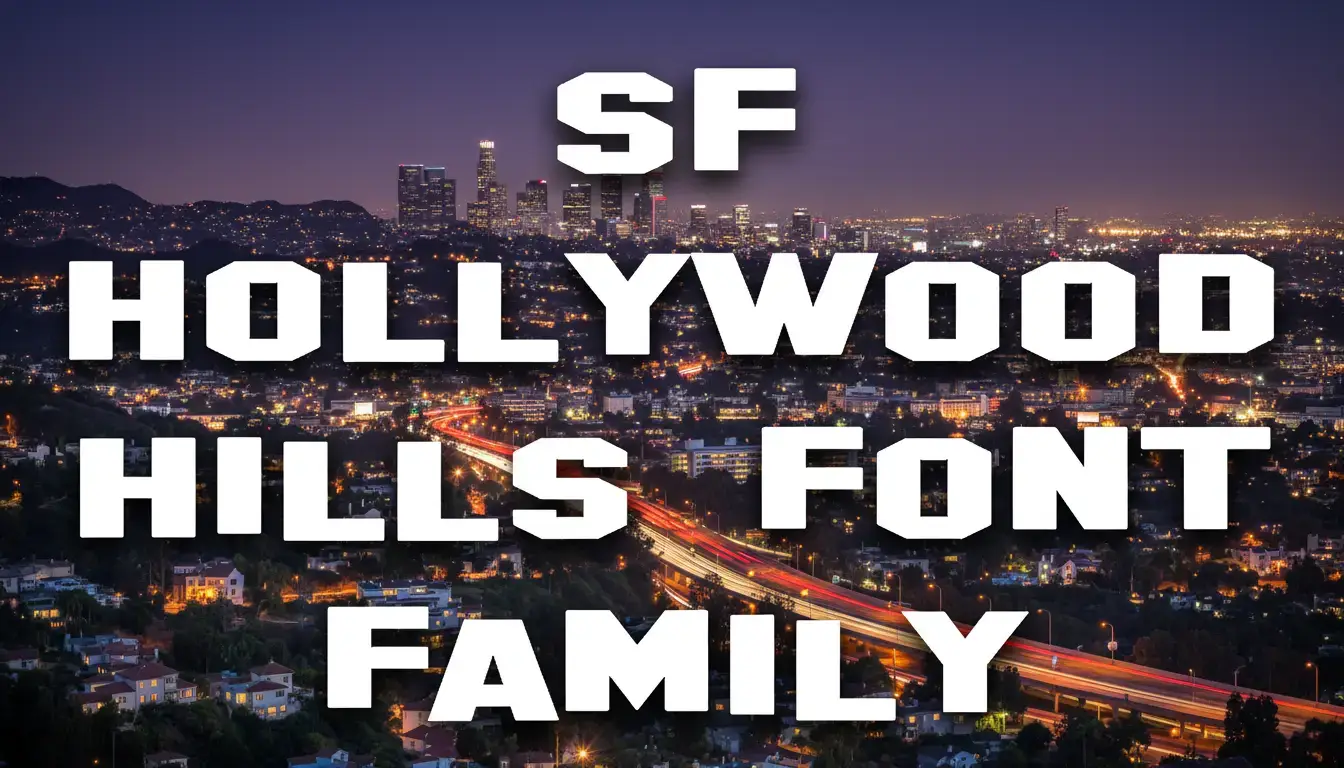
SF Hollywood Hills Font
What You Can Type With SF Hollywood Hills
SF Hollywood Hills covers the full alphabet in upper and lowercase, plus all ten numbers, so you can set names, dates and prices without switching fonts. Common punctuation such as ! and ? is included as well. It doesn't include accented letters such as é or ñ, which makes it an English-only font.
Where SF Hollywood Hills Works Best
SF Hollywood Hills is a natural fit for posters, logos and eye-catching headlines. Use it for one standout word or headline and let simpler fonts handle the rest. Because the family has more than one style, you can mix them in a single design for headings, subheadings and highlights.
Does SF Hollywood Hills support accented letters?
No. SF Hollywood Hills has no accented letters such as é, ñ or ü, so it's best for English text.